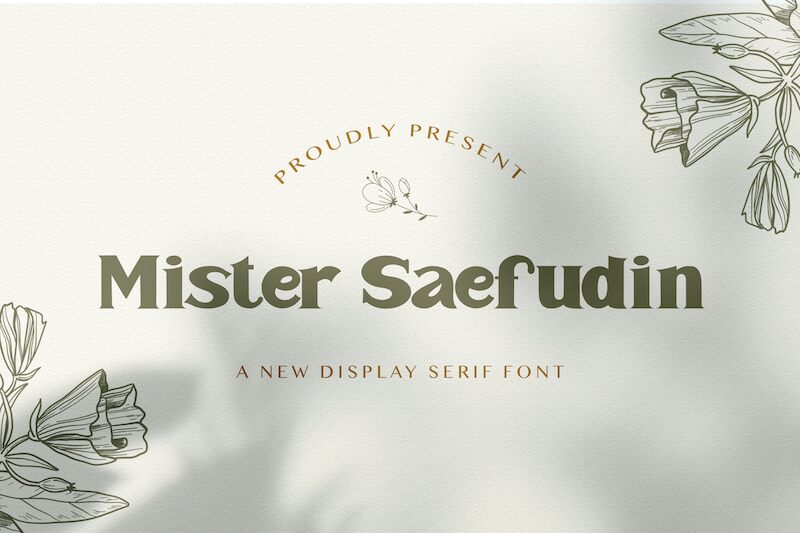
Mister Saefudin
Introducing Mister Saefudin, an eye-catching display font created by Virgiawan Listanto and featuring a bold, wide style. Perfect for creating attention-grabbing posters, show flyers and advertisements with a modern touch.